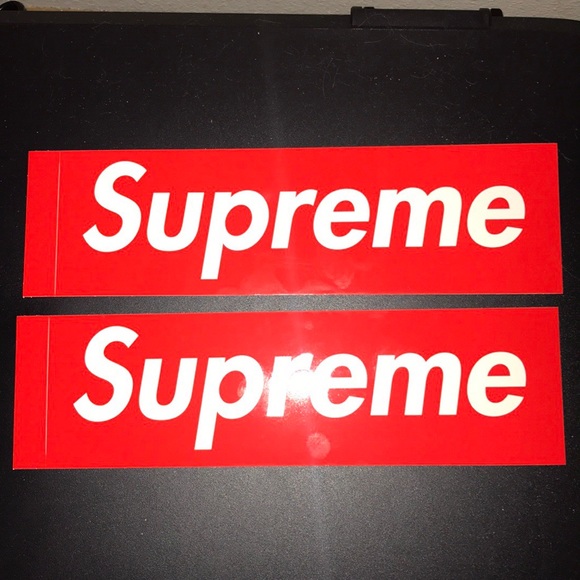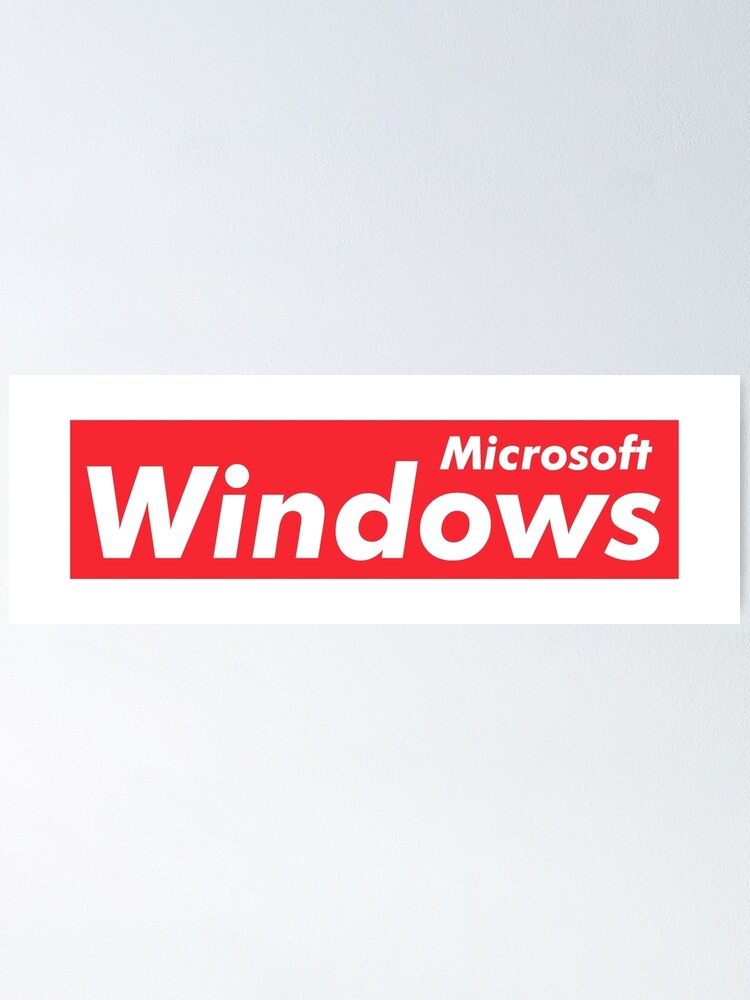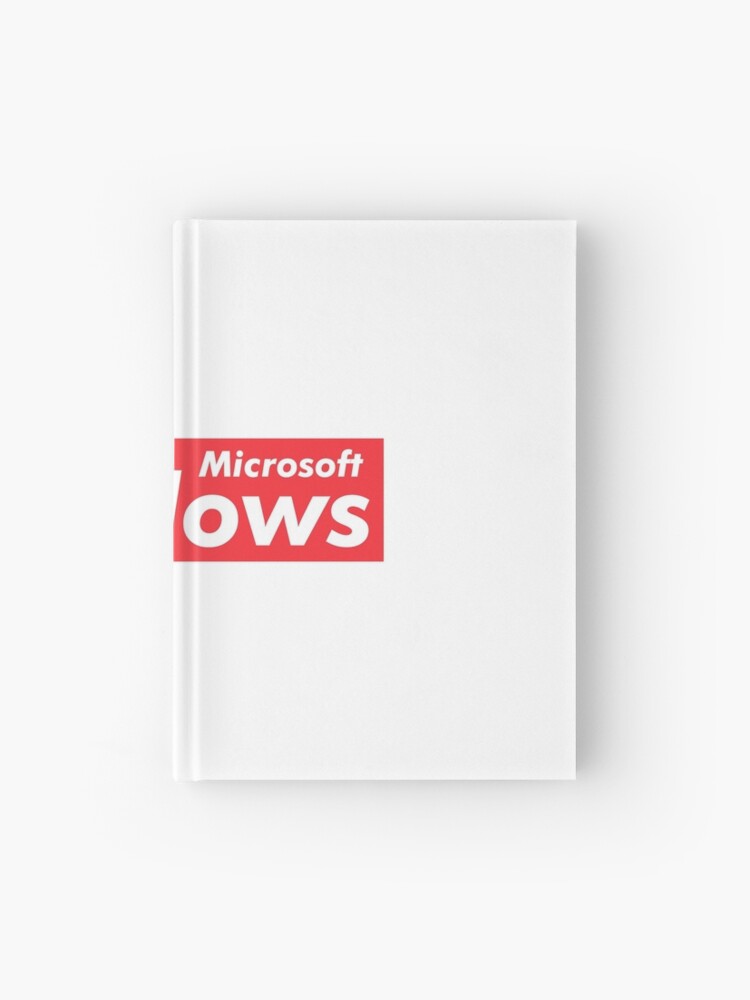
As we mentioned before the supreme font is a variation of futura whose characters have been slightly modified to have thinner strokes a slight inclination typical of cursive letters and wider spacing.
Alternatives to the supreme font. Futura is available as a commercial typeface and you can download and purchase the font here. Supreme font is typeface font style and it is used for the famous cloth brand in ny.
The logo of supreme is simply its logotype portrayed in white on a red background. This is the font which is used in the famous fashion brand supreme located in new york city. The font used for its logotype is similar to futura daring italic.
Futura font is a geometric sans serif typeface with a great repute in the type design market. Supreme is an apparel brand established in ny city. The font used for its logotype is similar to futura bold italic.
We have thousands of free fonts available for you. The supreme logo generator or the supreme font logo generator is a helpful tool that is used to quickly create and download a jpeg image in the pattern of the iconic supreme font. The text lettering employing for the supreme logo is futura bold italic font.